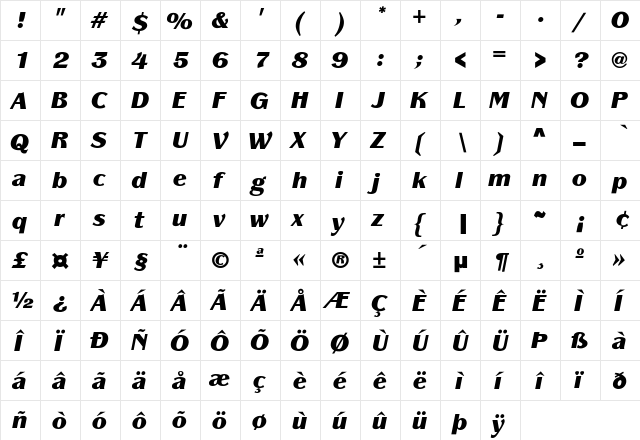
Panache-BlackIt Regular Font Preview
Panache-BlackIt Regular
Panache-BlackIt Regular Font Details
Design Context for Panache-BlackIt Typeface
Panache-BlackIt offers clean, dependable letterforms without strong stylistic allegiance, making it a practical choice for designers who need flexibility.